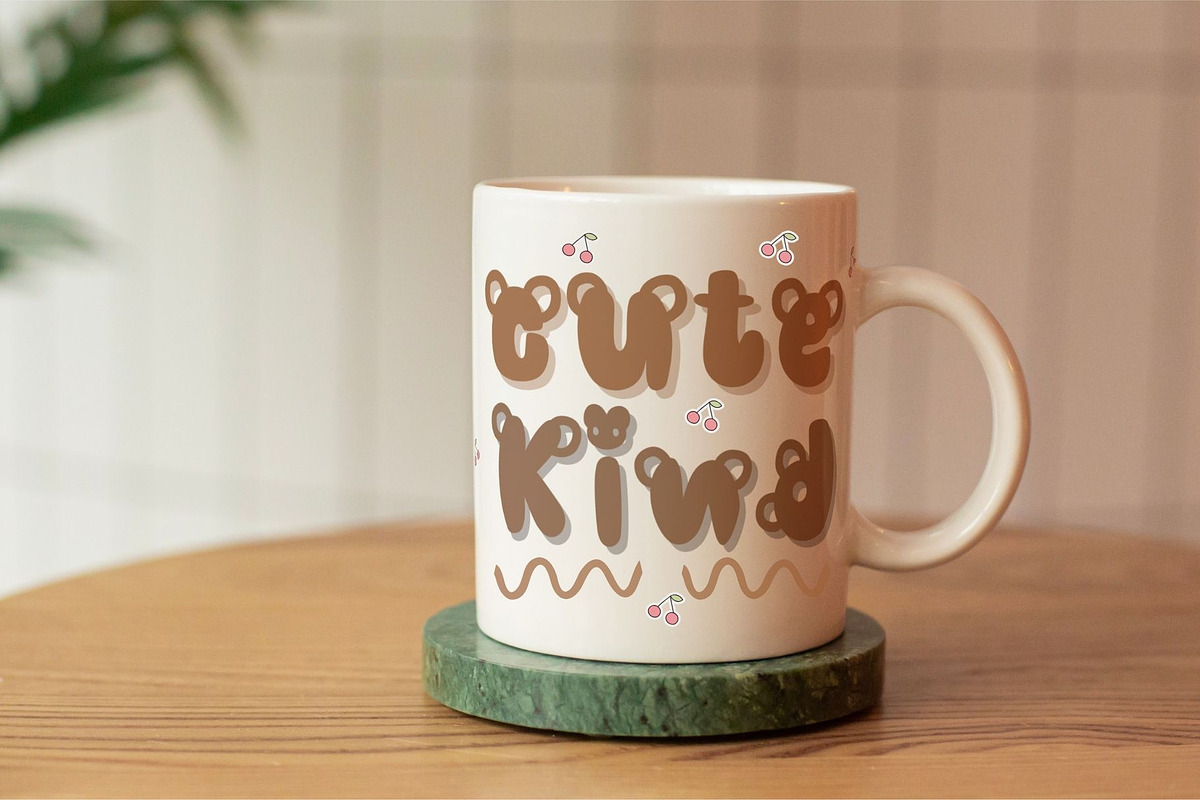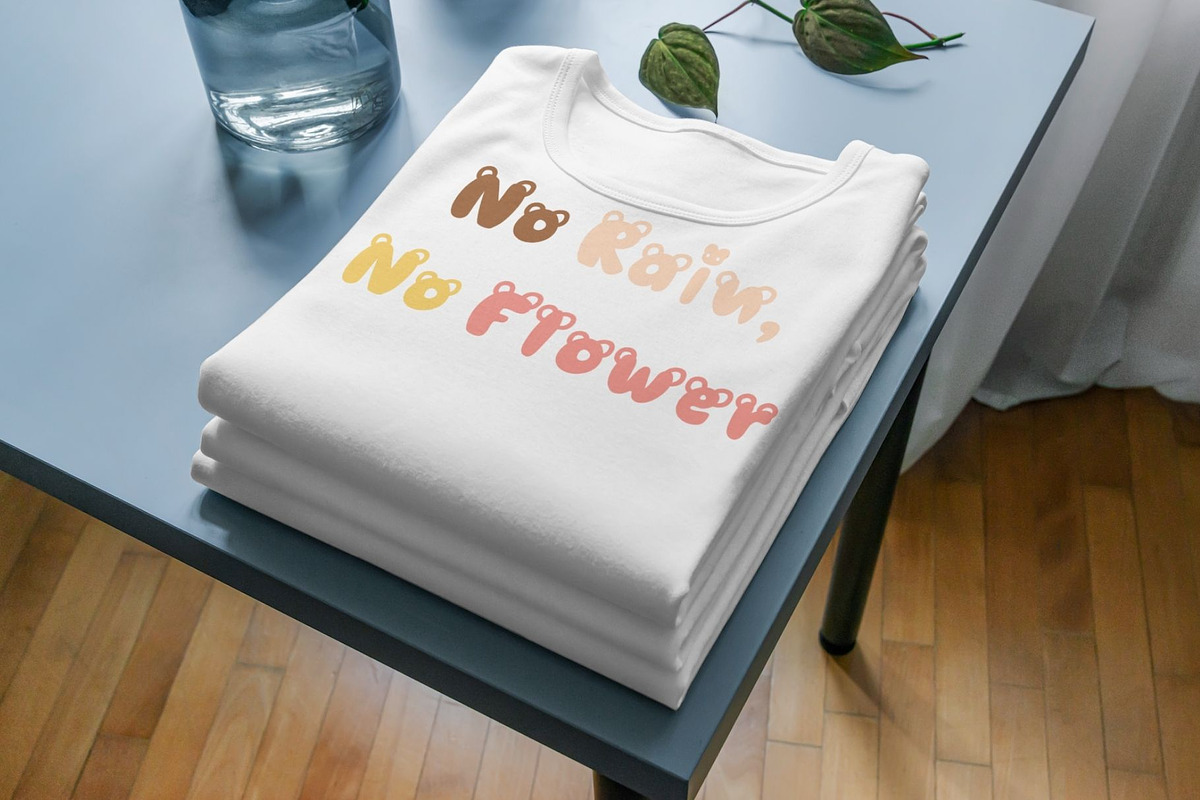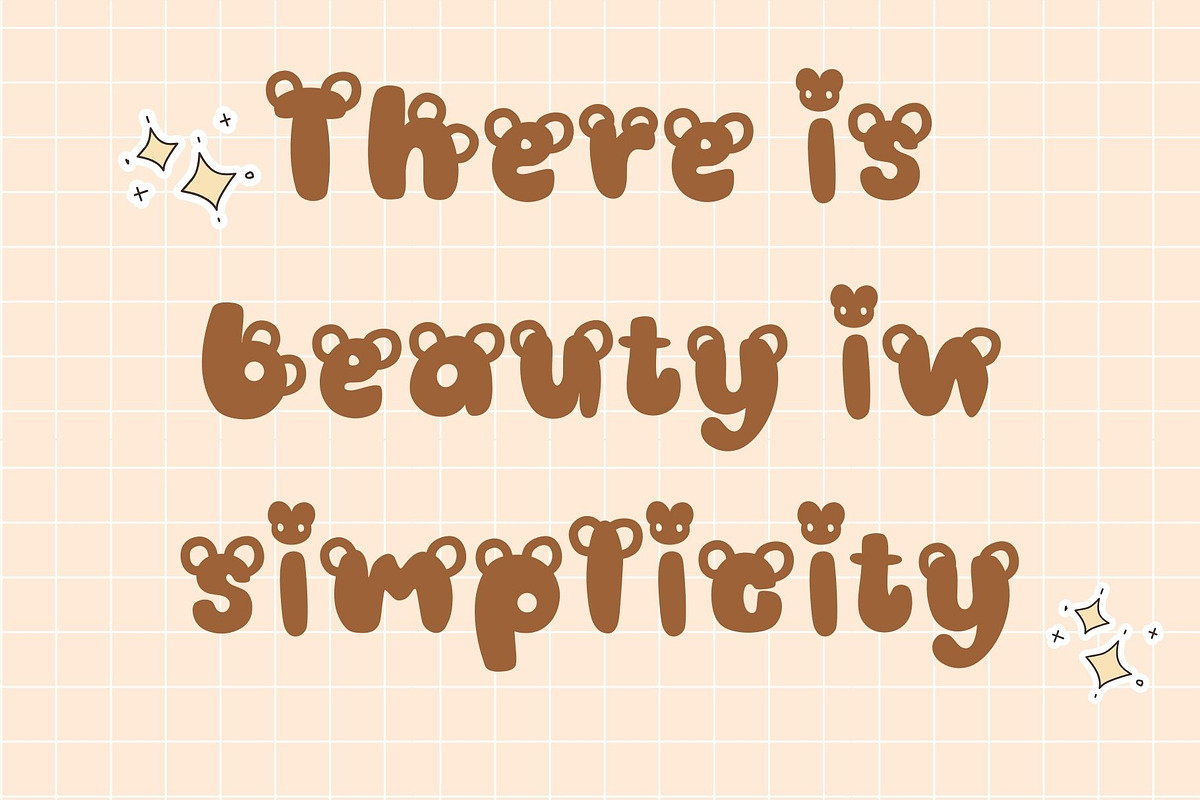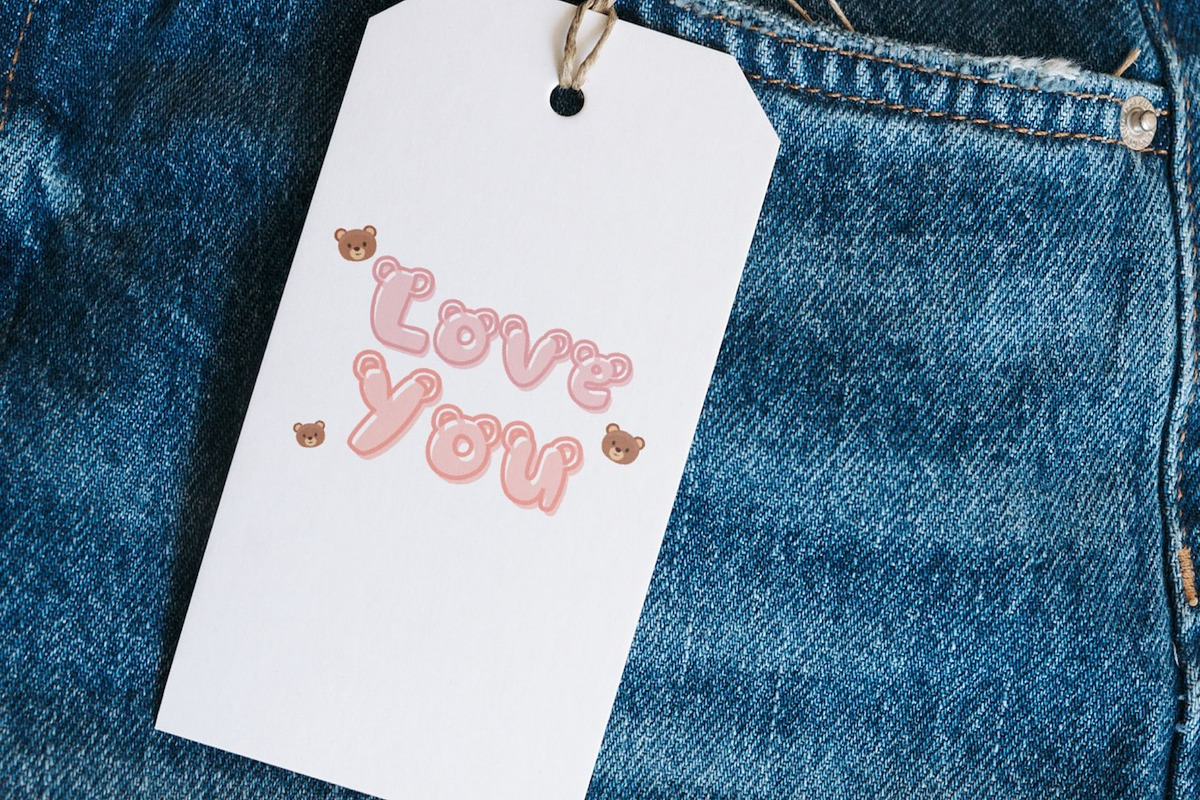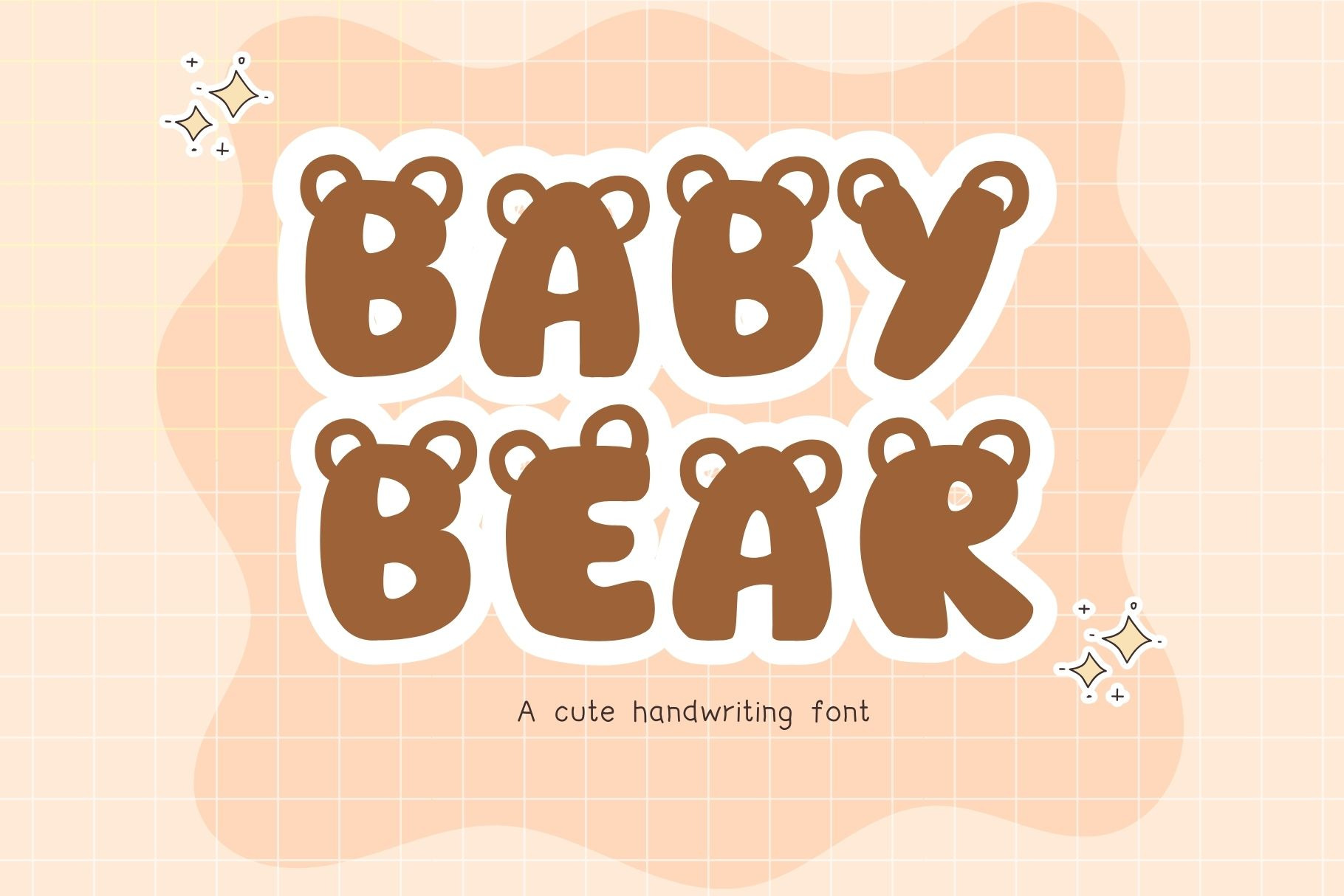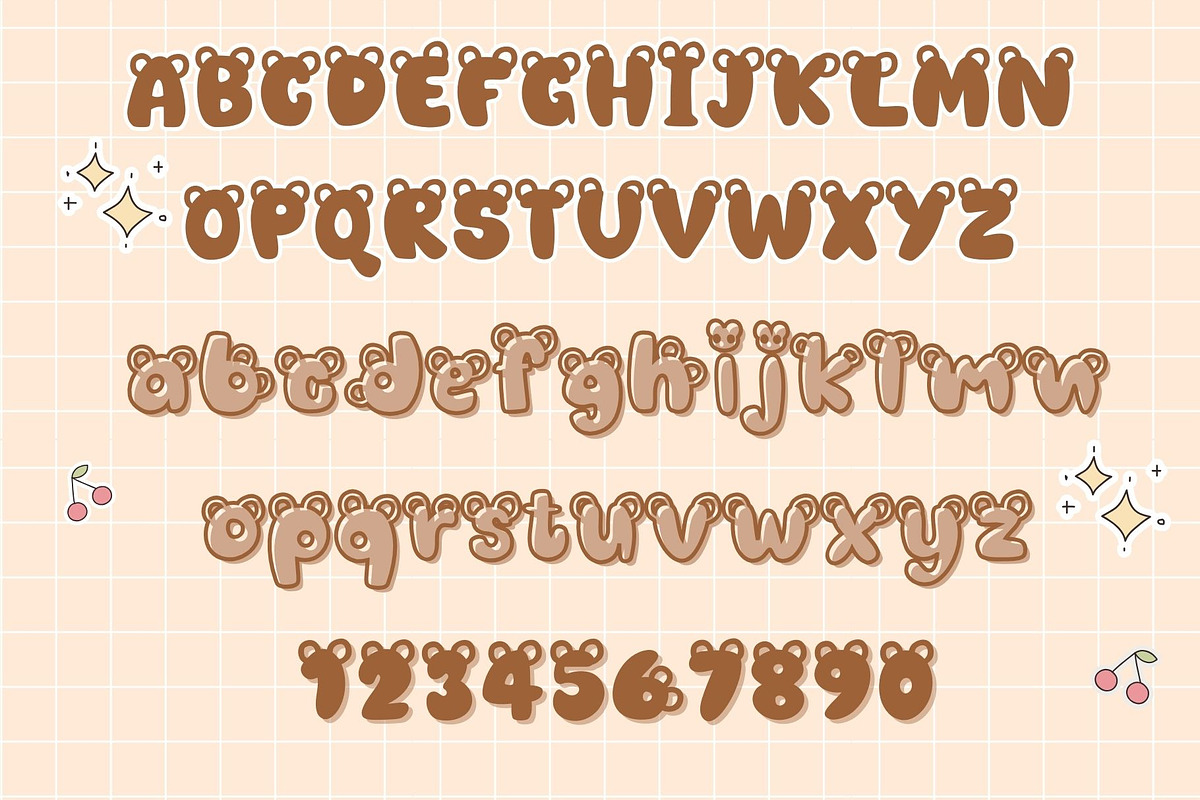
Baby bear font.
🐻Baby bear display handwriting font, designed to convey the cuteness of teddy bears. You can use it for various design projects that interest you, including clothing, bags, stickers, glasses, and more, allowing you to have fun with your designs.